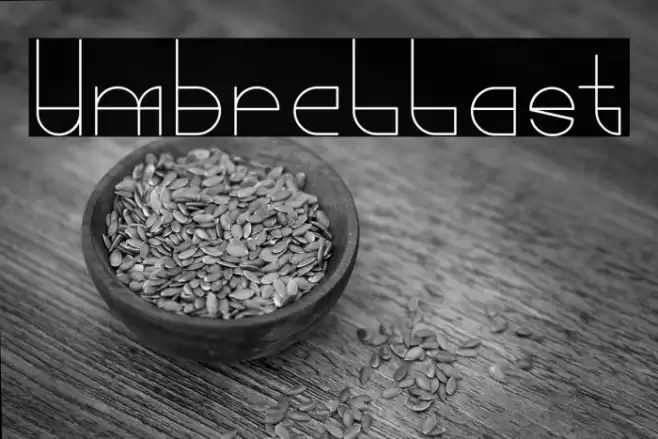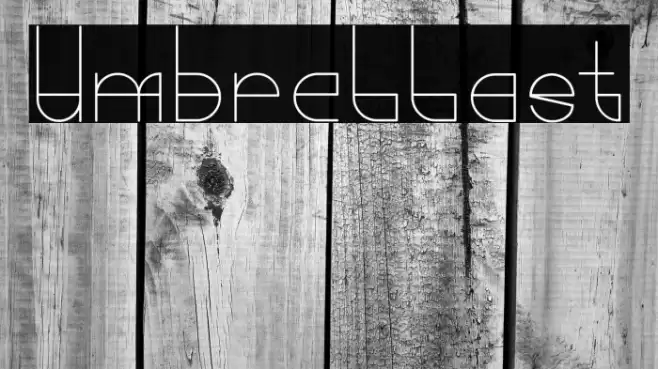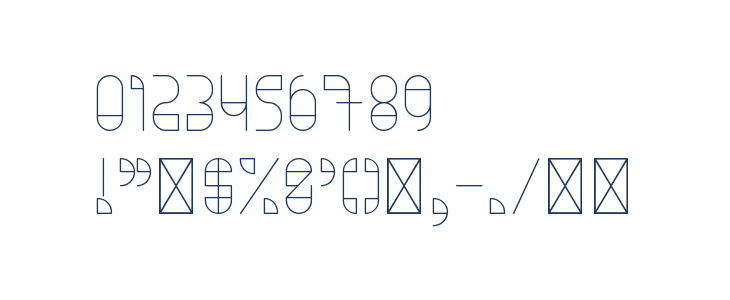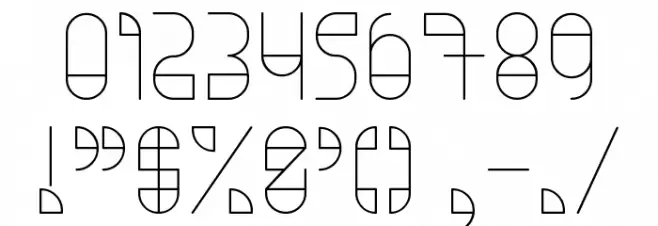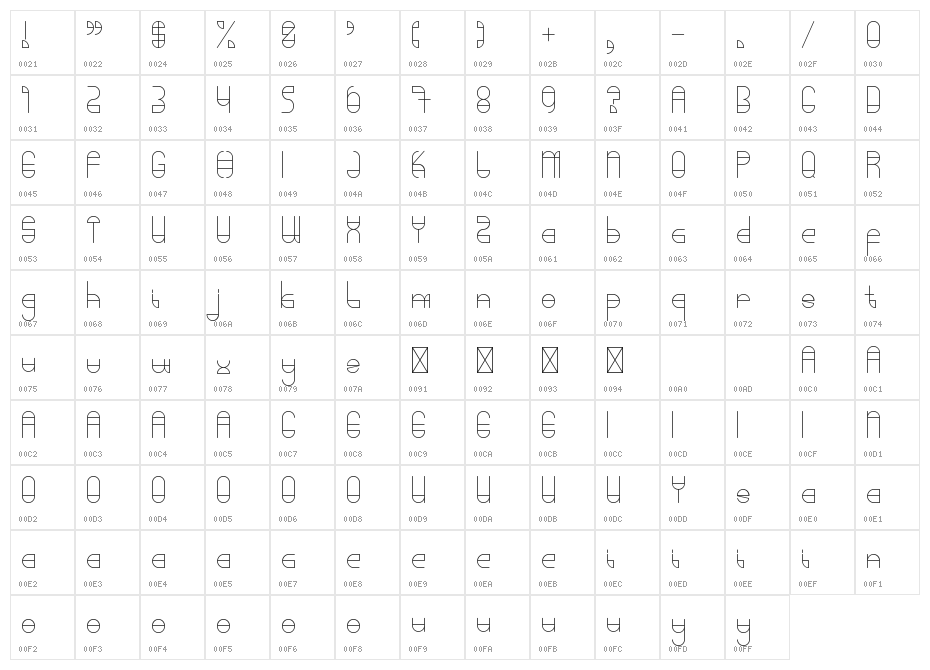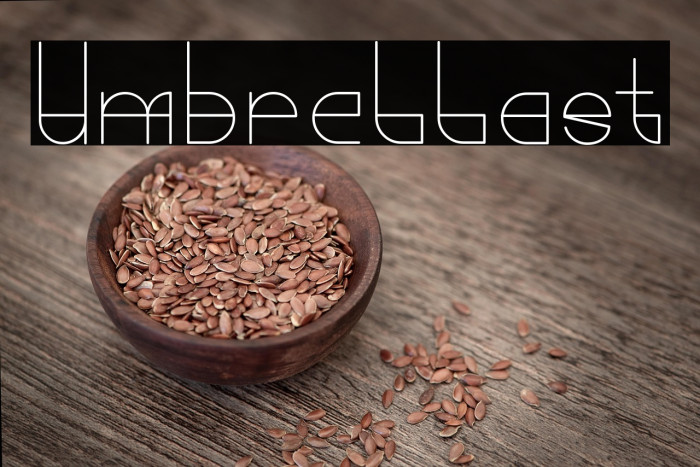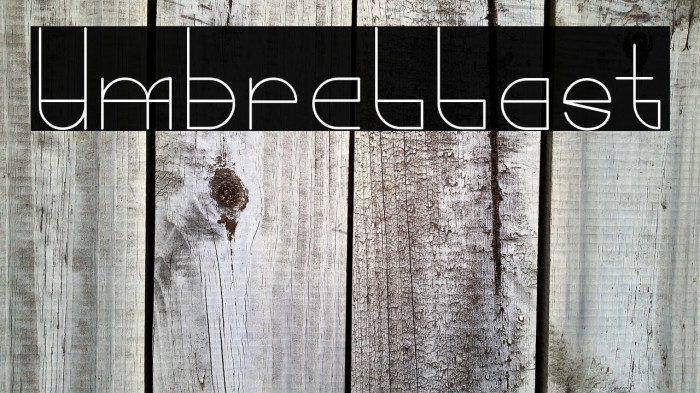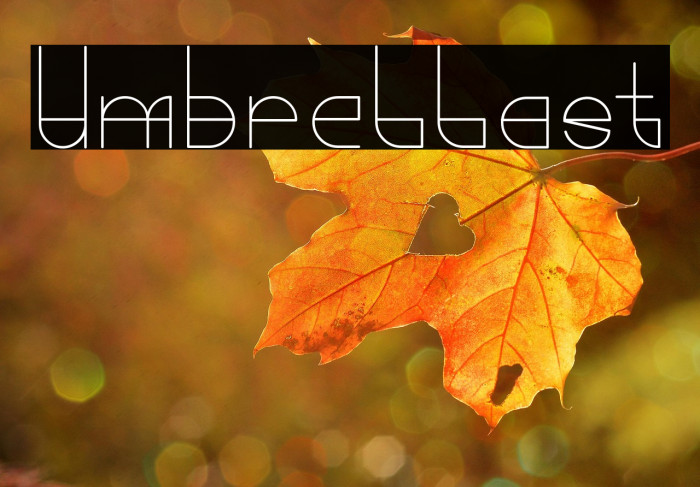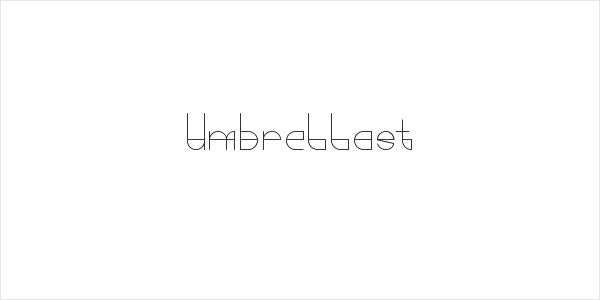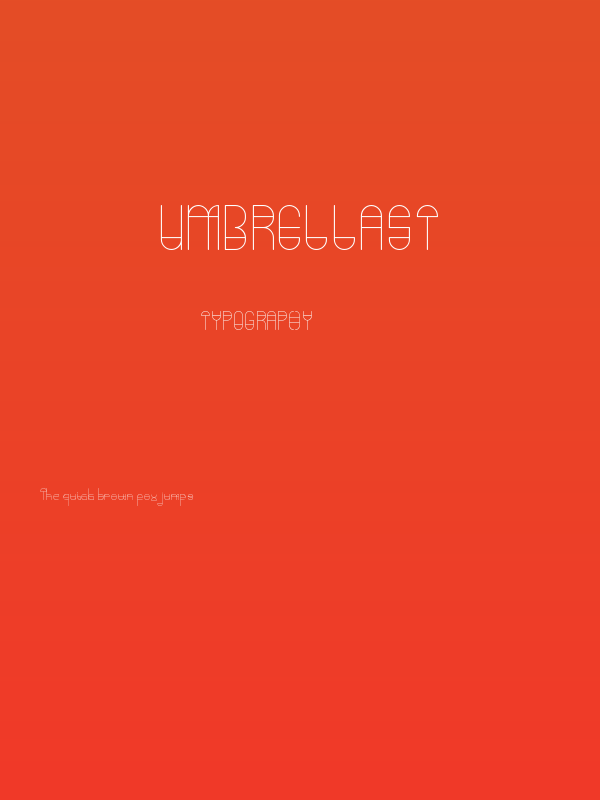
Umbrellast Font
Umbrellast Description
This font features a modern, geometric design with a unique blend of straight lines and curves. The characters are constructed with a consistent stroke width, creating a clean and minimalist appearance. The uppercase letters have a distinct architectural feel, with rounded edges and open spaces that give a sense of openness and clarity. The lowercase letters maintain the geometric theme, with some characters featuring unexpected angles and curves that add a touch of playfulness. The numerals and special characters are designed to match the overall style, ensuring a cohesive look across all text. This font's precise and structured design makes it ideal for contemporary projects that require a sleek and sophisticated aesthetic.
A modern, geometric font with clean lines and a minimalist style from Regular fonts.
- Proposed Projects: Ideal for branding, logos, headlines, and modern web design projects.